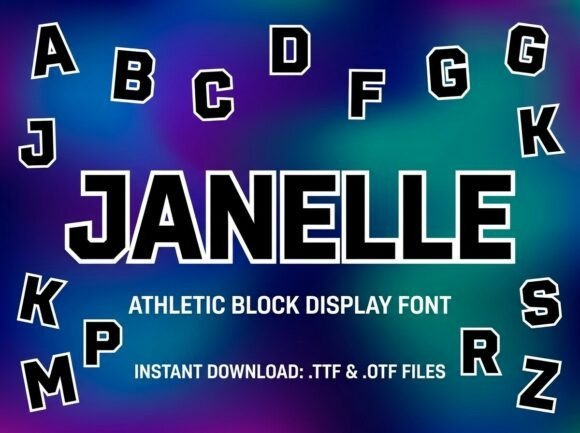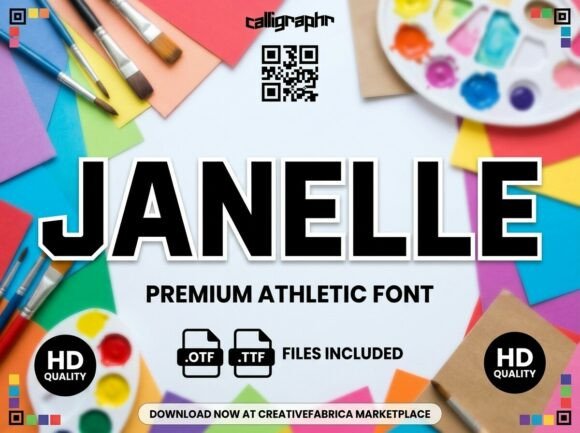
Get Ready to Score Big with Janelle Font
Do you remember the rush of adrenaline as you stepped onto the field, jersey proudly displayed with your team’s logo emblazoned on the back? For designers, that moment is what drives creativity – the need to capture the essence of a team’s spirit, to evoke emotions and create a sense of belonging. It’s this same feeling that inspired the creation of Janelle, a high-performance display typeface that embodies the “varsity-and-victorious” soul.
With its classic heavy block letterforms and sharp chamfered corners, Janelle Font is the perfect choice for independent sports teams, fitness apparel logos, university event posters, and high-impact social media headers. Whether you’re designing for a local team or a global brand, Janelle Font is a valuable tool that will help you stand out from the crowd and connect with your audience on a deeper level.
- Font Family: Janelle Font is a modern sans-serif font family designed for digital use.
- Unique Characteristics: Janelle Font features a clean and minimalist design, with a focus on legibility and readability in digital environments.
Janelle Font Review
I recently had the chance to work with the Janelle font, and overall, I’m quite impressed. ✨ Here are some of the things that stood out to me.
- Legibility: The font is incredibly easy to read, even at smaller sizes.
- Style: Janelle has a unique, elegant feel that makes it perfect for a variety of projects, from branding to publishing.
- Customization: The font offers a range of weights and styles, giving you plenty of options to find the perfect fit for your design.
That being said, there are a few limitations to consider ⚠️.
- Character set: The font doesn’t include a full character set, which may limit its use in certain languages or contexts.
- Spacing: I found the font’s spacing to be a bit inconsistent at times, which can affect the overall flow of text.
Overall, I’m quite pleased with the Janelle font. While it’s not perfect, its strengths far outweigh its weaknesses, making it a solid choice for any design project.
The Janelle Font is ideal for use in:
– Creative projects, such as posters, flyers, and social media graphics.
– Fashion and beauty branding.
– Designing invitations and event materials.
Getting the Most Out of Janelle Font
To get the most out of the Janelle Font, try combining it with other creative elements, such as bold colors, textures, and graphics. Experiment with different font sizes and styles to add visual interest to your designs.
Comparison to Janelle Font: Lato is more geometric and modern, while Janelle Font has a more organic and handwritten feel. Lato is also more suitable for digital applications, while Janelle Font is more suitable for print materials.
Comparison to Janelle Font: Montserrat is more geometric and structured, while Janelle Font has a more organic and handwritten feel. Montserrat is also more suitable for digital applications, while Janelle Font is more suitable for print materials.